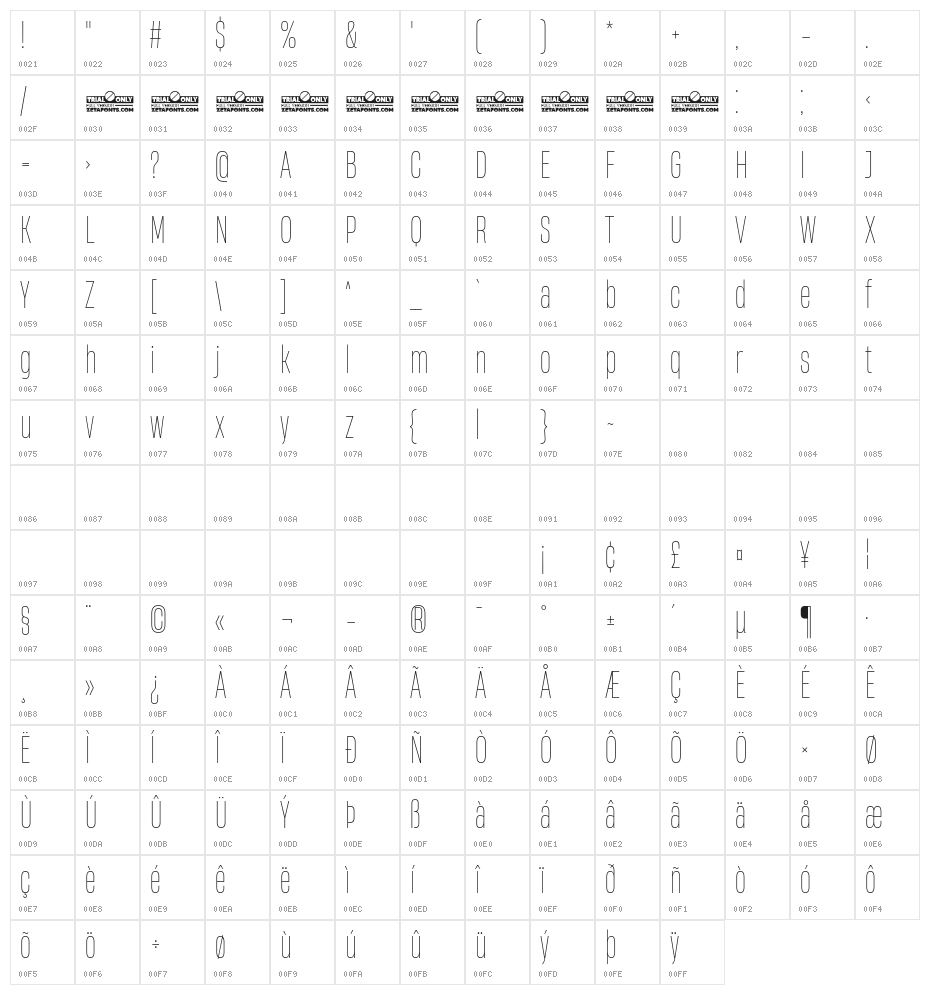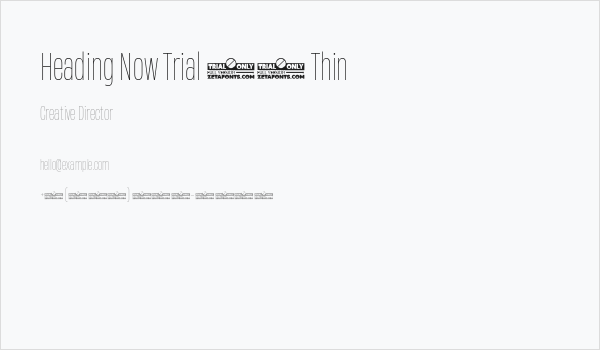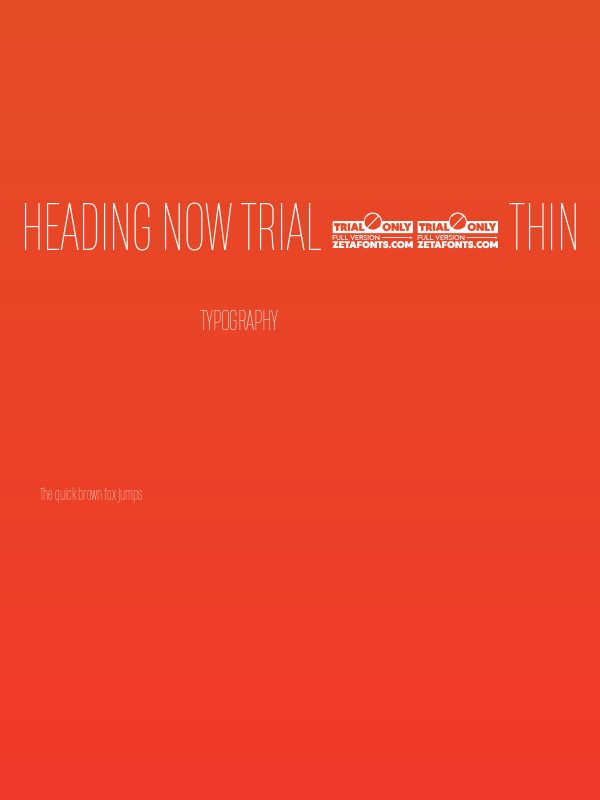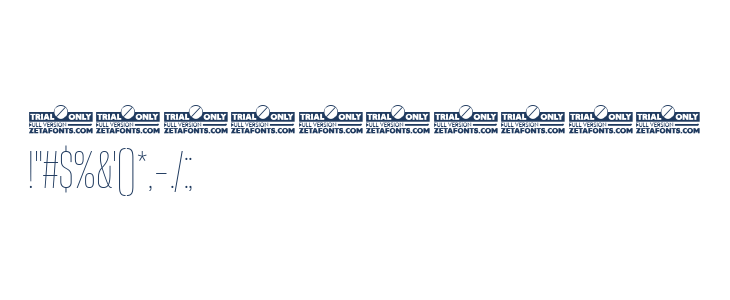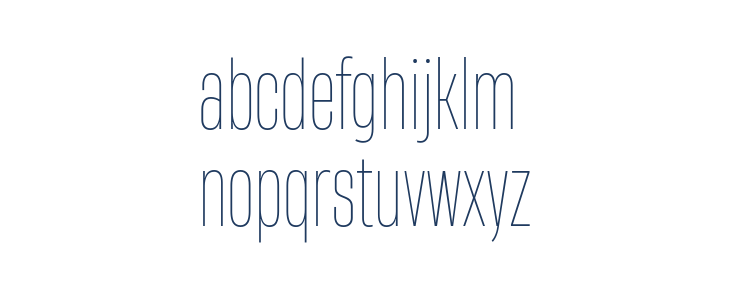
Heading Now Trial 31 Thin Font
Heading Now Trial 31 Thin Description
This font features a sleek and modern design with elongated, thin strokes that give it a sophisticated and elegant appearance. The characters are tall and narrow, contributing to a clean and streamlined look. The uppercase and lowercase letters maintain a consistent style, with minimal contrast in stroke thickness, emphasizing a uniform and harmonious aesthetic. The font's simplicity and clarity make it highly readable, while its contemporary style adds a touch of refinement. Special characters are included, maintaining the same thin and elongated style, ensuring consistency across all glyphs.
| Proposed Projects | Ideal for fashion magazines, luxury branding, minimalist websites, and modern editorial layouts. |